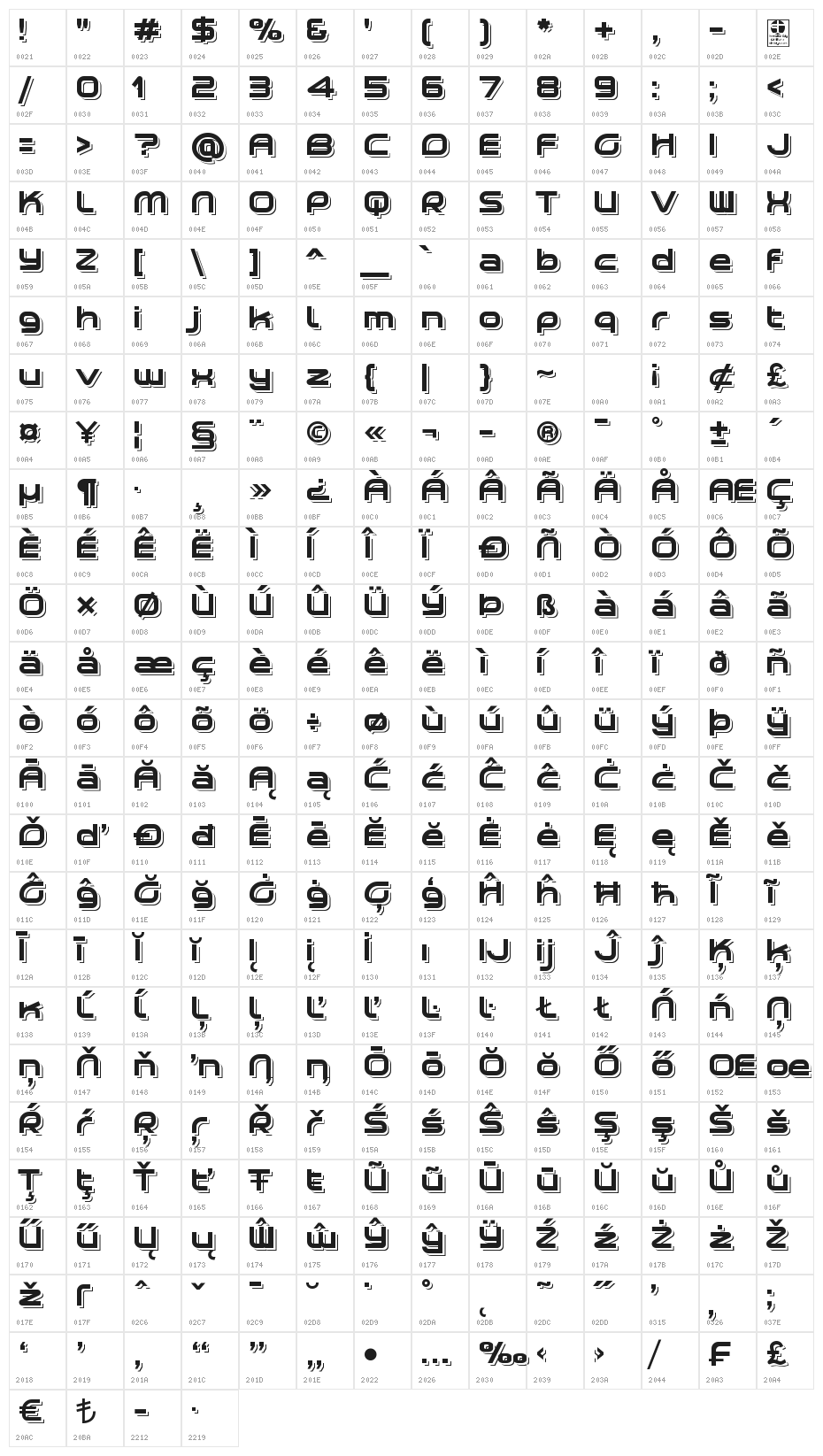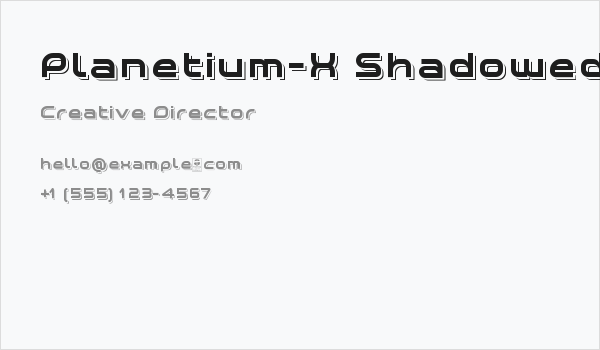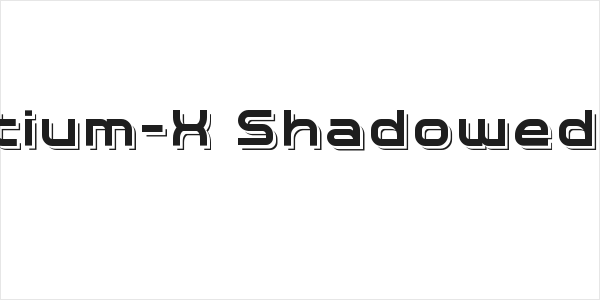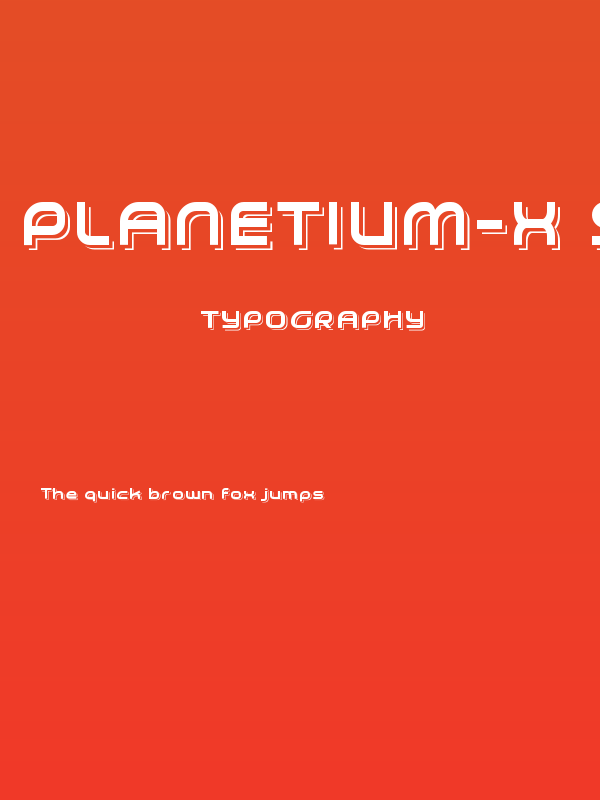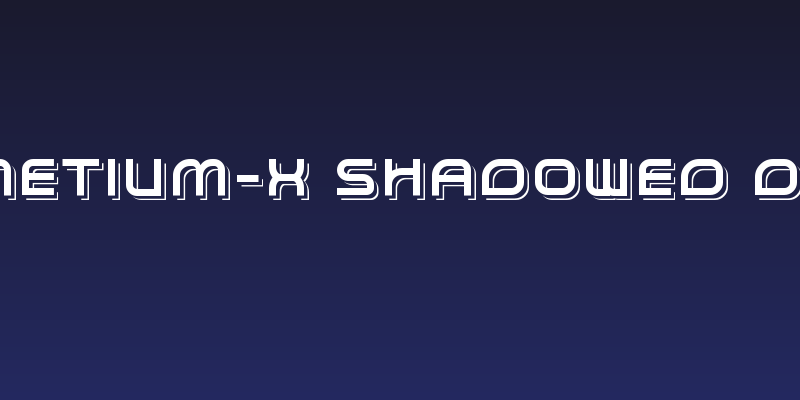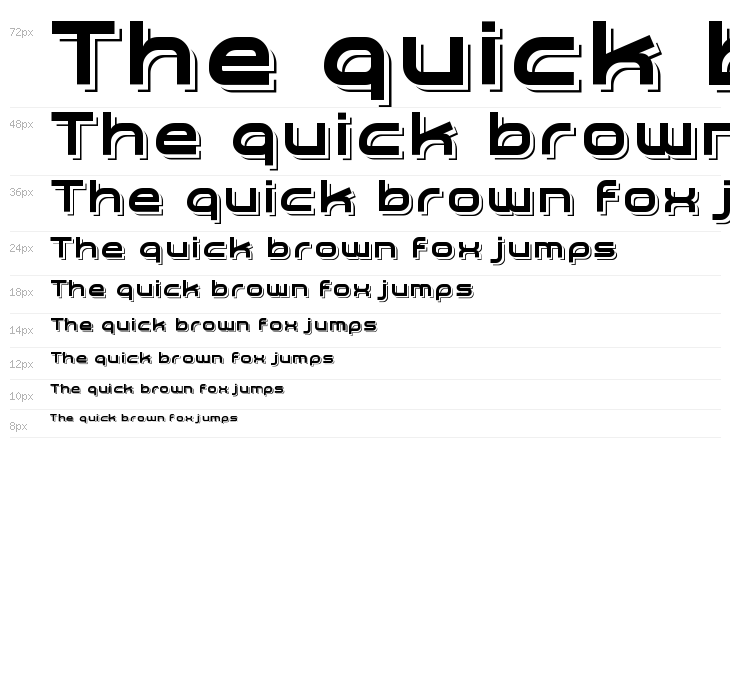
Planetium-X Shadowed Demo Font
Planetium-X Shadowed Demo Description
This font features a futuristic and bold design with a distinct shadow effect that gives it a three-dimensional appearance. The characters are geometric and structured, with clean lines and a modern aesthetic. The uppercase and lowercase letters maintain a consistent style, while the numerals and special characters complement the overall design. The shadow effect adds depth, making it ideal for eye-catching displays.
| Proposed Projects | Ideal for sci-fi themed projects, video game titles, posters, and branding that requires a modern and dynamic look. |